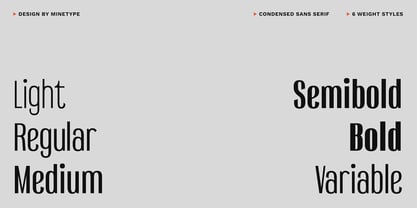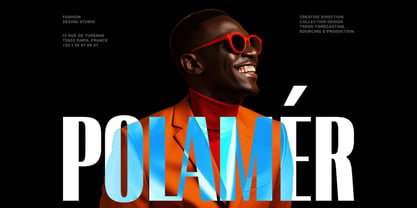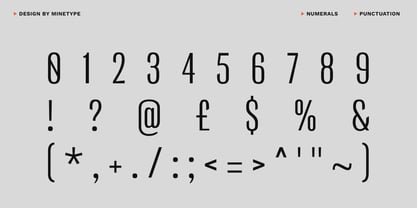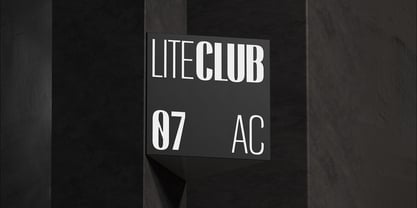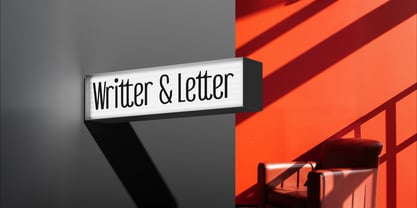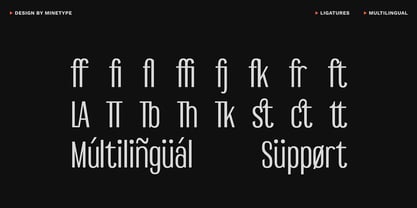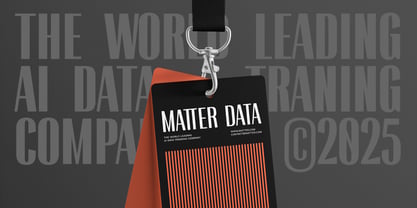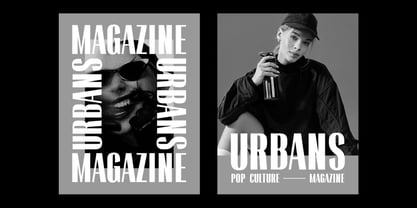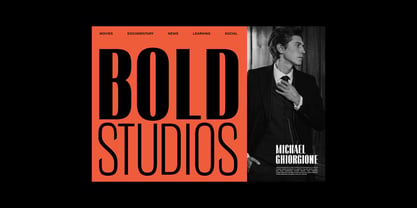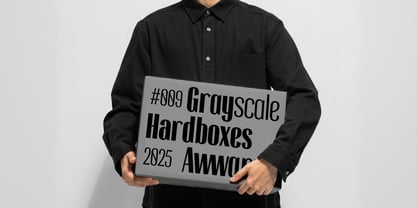
Impactors Futuristic
by Minetype
The Impactors Futuristic Font Family was designed by Irfan Affian and published by Minetype. Impactors Futuristic contains 4 styles and family package options. More about this family
Impactors is a bold futuristic display font crafted with strong geometric forms and modern details, delivering a powerful and striking impression. Designed as a complete font family, Impactors offers multiple weights and styles that give you flexibility for various design needs. From sharp headlines to stylish branding, this font family ensures consistency while keeping your design bold and futuristic.
Perfect for posters, logos, banners, packaging, digital content, and any creative project that requires impactful typography.
Impactors version 1.0 is available with:
• Uppercase
• Lowercase
• Numbers
• Symbols
• Multiple Weights & Styles
• Multilingual Support
Designers: Irfan Affian
Foundry: Minetype